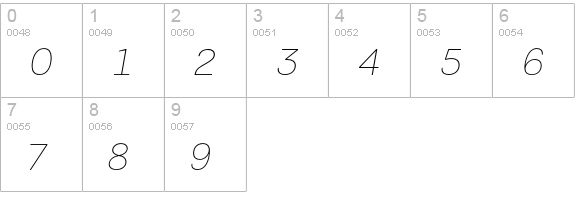
PFEncoreSansPro-ExtraThinItalic is a sleek and elegant font that exudes a sense of sophistication and modernity. With its ultra-thin strokes and delicate italics, this typeface is perfect for adding a touch of refinement to any design project. Whether you are creating a minimalist logo, elegant wedding invitations, or stylish branding materials, PFEncoreSansPro-ExtraThinItalic will elevate your work to new heights. And the best part? This exquisite font is available for free download at FontsMarket.com. So go ahead and add PFEncoreSansPro-ExtraThinItalic to your font collection today and let your creativity soar!